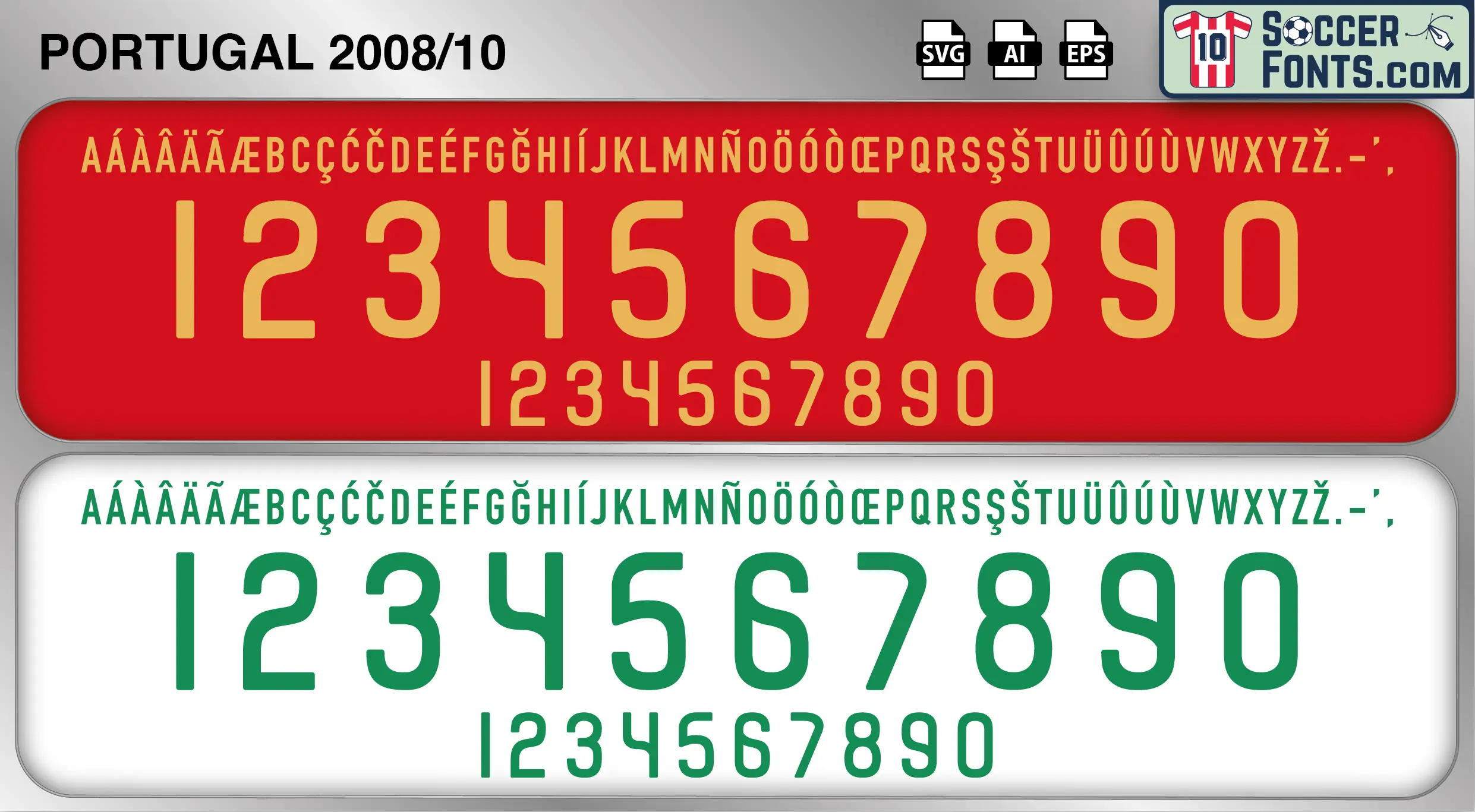
Portugal 2008-10 Font
The Portugal 2008-10 font is an editable soccer jersey lettering design in vector format inspired by the Portugal kit style used during the 2008-10 football seasons. This football font artwork is prepared for football shirt recreations, custom jersey projects, football kit mockups and sports graphic design workflows.
The 2008-10 period marked the beginning of a new chapter for the Portugal national team as Cristiano Ronaldo emerged as the undisputed leader of the squad. Portugal entered UEFA EURO 2008 with high expectations following its strong performances at UEFA EURO 2004 and the 2006 FIFA World Cup. The team featured notable players including Ronaldo, Deco, Pepe, Ricardo Carvalho, Simão Sabrosa, Nani and João Moutinho. Portugal impressed during the group stage of EURO 2008 before being eliminated by Germany in the quarter-finals. The tournament represented one of the final appearances of several experienced players who had been central figures throughout the previous decade.
The Portugal 2008-10 font became associated with the transition toward a new generation that would shape Portuguese football in the years ahead. Following EURO 2008, Portugal focused on qualification for the 2010 FIFA World Cup in South Africa, navigating a difficult campaign before securing a place through the play-offs against Bosnia and Herzegovina. During this era, Cristiano Ronaldo developed into one of the biggest stars in world football while becoming the focal point of the national team. Portugal shirts from the 2008-10 period remain popular among football shirt enthusiasts because of their connection to EURO 2008, the rise of Ronaldo as Portugal’s leading figure and an important stage in the evolution of one of Europe’s most competitive national teams.